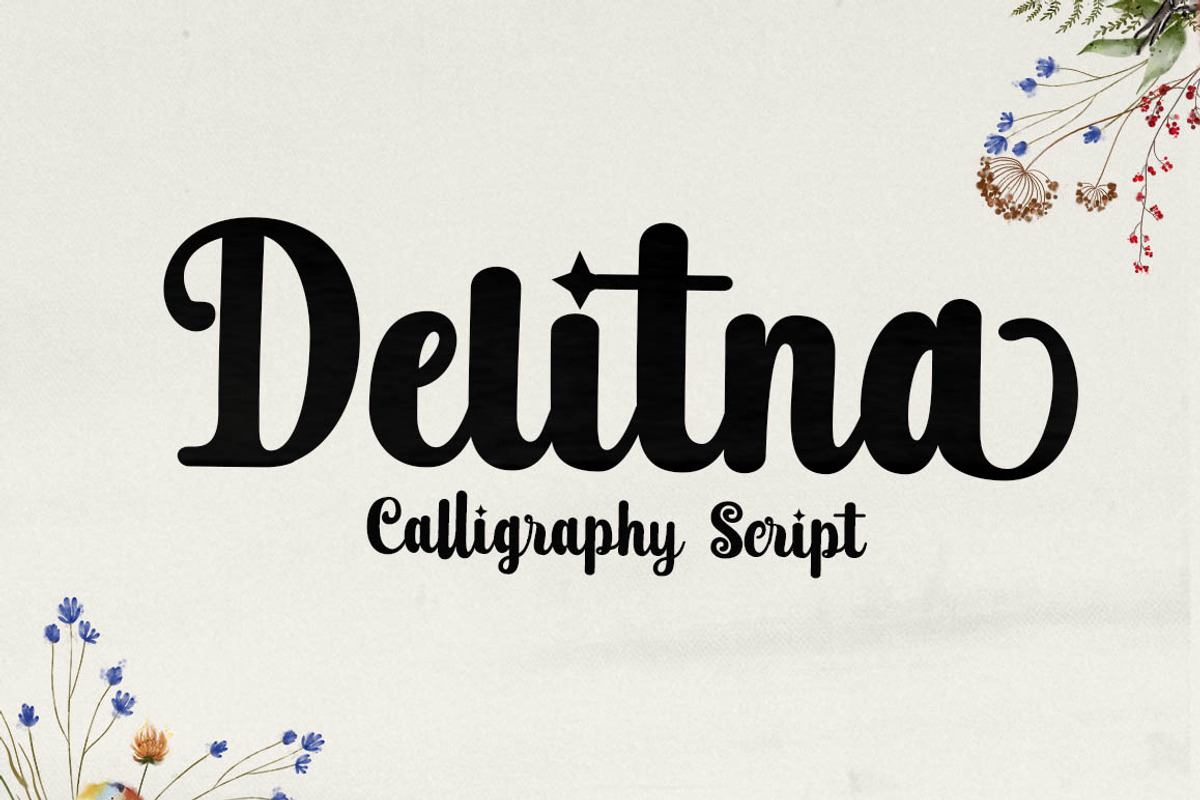
Delitna Script Free Download
Delitna Script Font Free Download is a graceful and flowing handwritten typeface that exudes elegance and femininity. With its smooth curves, stylish swashes, and authentic calligraphic feel, Delitna is perfect for wedding invitations, branding, signature logos, greeting cards, and high-end product packaging.
Designed to look effortlessly beautiful, Delitna adds a personal and romantic touch to any design project. Whether you're crafting a boutique logo or creating delicate social media content, this font brings charm, sophistication, and modern calligraphy vibes to your typography.